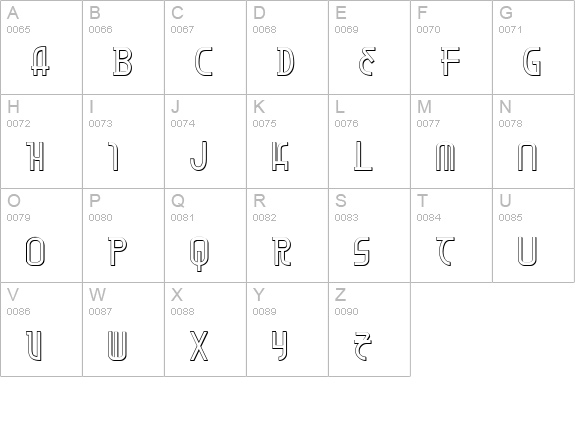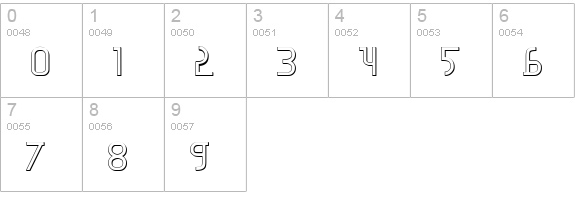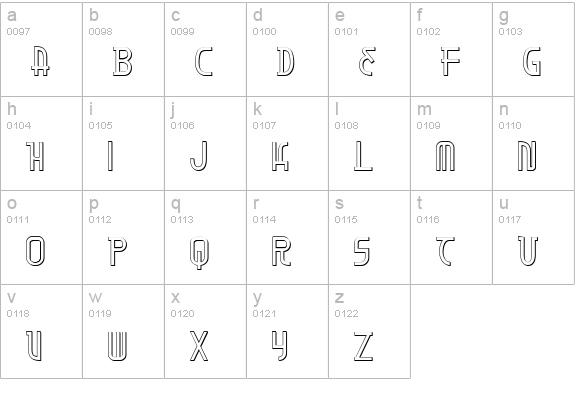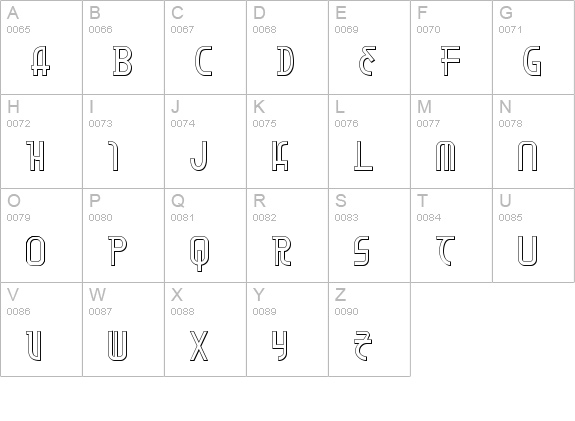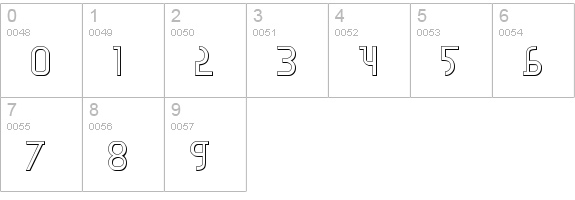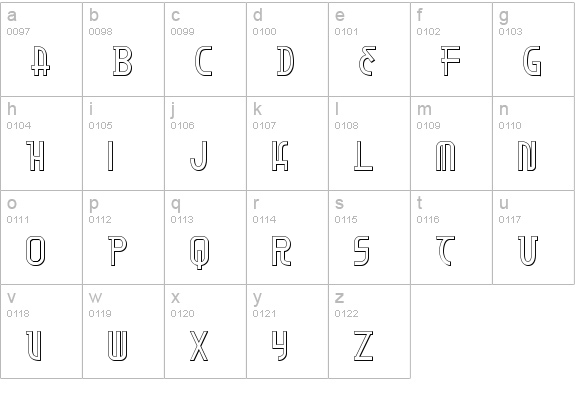
Moon Dart 3D Font Details
Moon Dart 3D font is a striking and modern typeface that effortlessly combines sleekness with a three-dimensional effect. With its sharp angles and bold design, Moon Dart 3D is perfect for making a statement in any creative project. This font exudes a sense of sophistication and futuristic flair, making it ideal for titles, logos, and headlines that demand attention. The best part? Moon Dart 3D font is available for free download at FontsMarket.com. Simply head over to the website and add this eye-catching font to your collection without any cost. Don't miss out on the opportunity to elevate your designs with Moon Dart 3D font, the perfect blend of style and functionality.